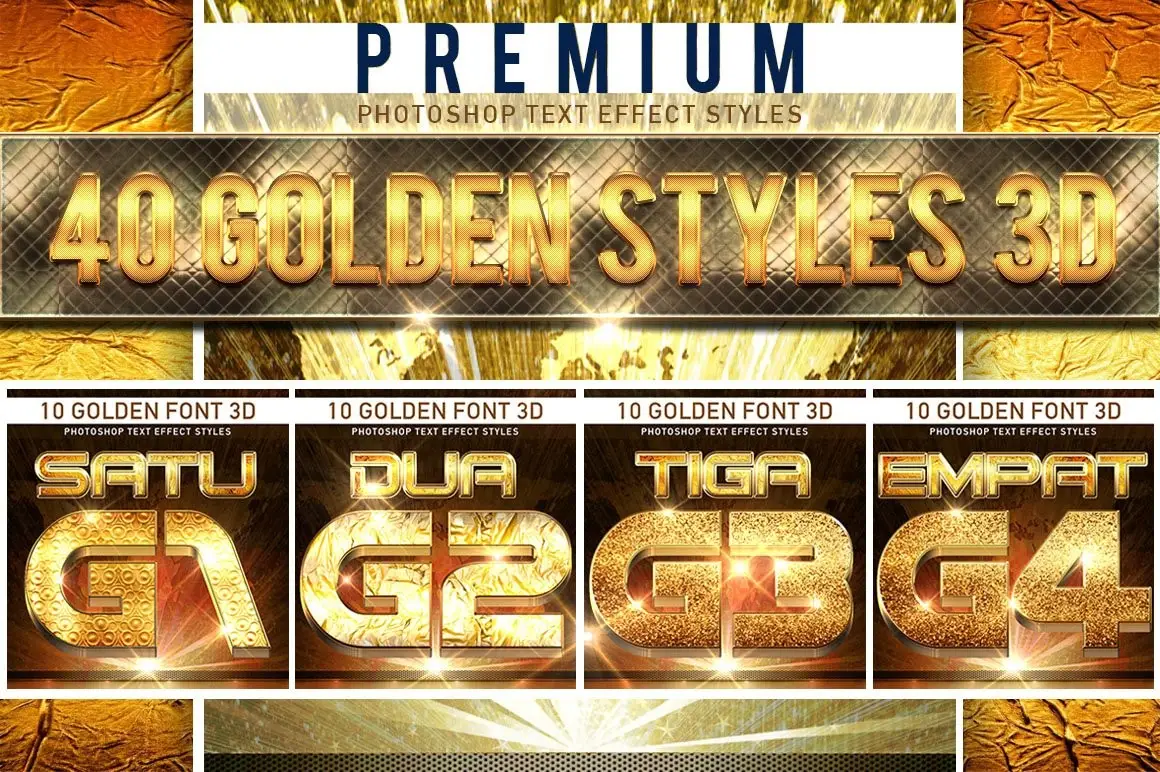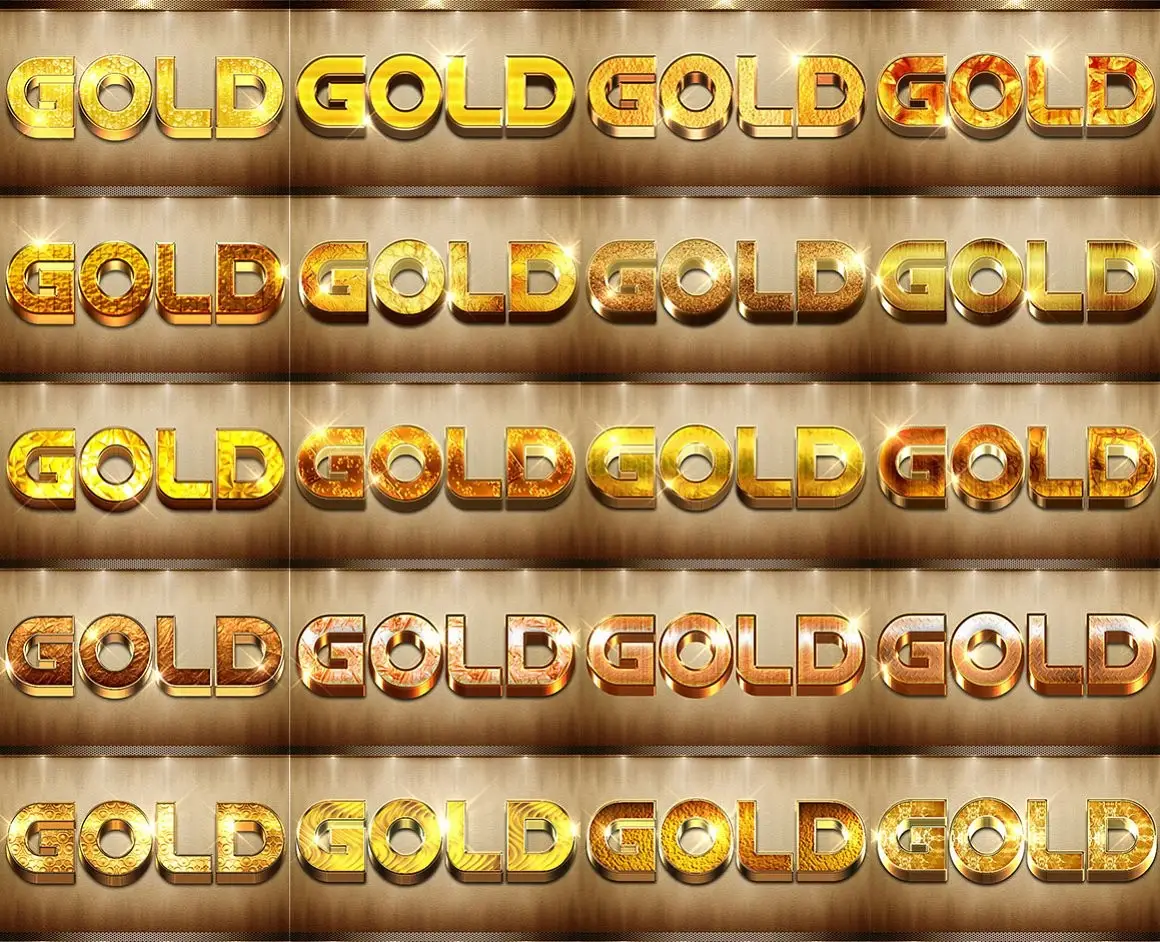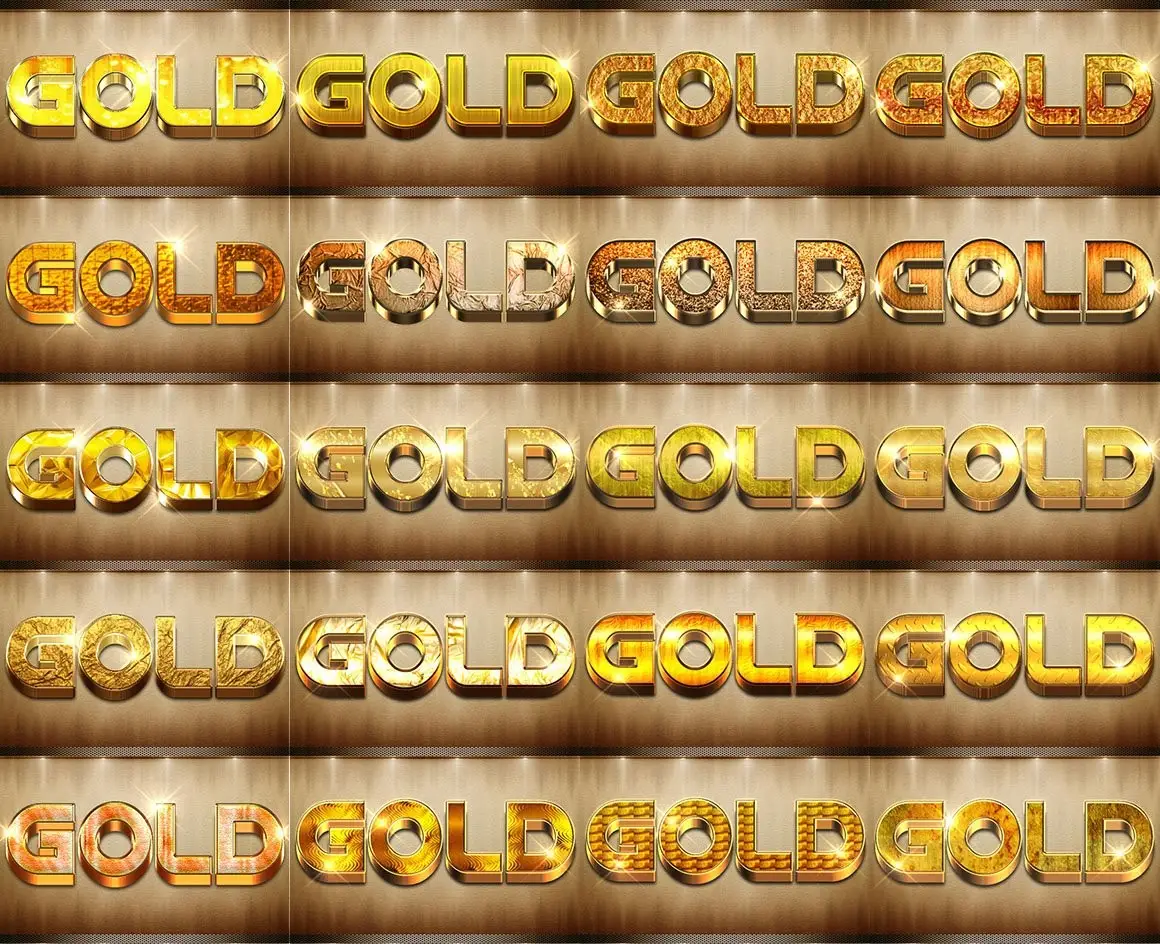
40 Golden Font 3D – Premium Photoshop Text Effects
Transform your designs with the 40 Golden Font 3D, a collection of premium Photoshop text effects that brings elegance and luxury to your projects. Whether you’re working on a summer-themed design or a glamorous presentation, these fonts are fully editable and incredibly easy to customize, making them the perfect addition to your creative toolkit.
The 40 Golden Font 3D is designed specifically for Photoshop users who want to elevate their text with stunning 3D effects. This versatile font pack is ideal for graphic designers, marketers, and anyone looking to add a touch of brilliance to their text. With just a few clicks, you can create eye-catching titles and headlines that stand out.
- ✅ Fully Editable → Easily change size and style to suit your needs.
- ✅ High-Quality Design → Achieve a luxurious look with golden textures.
With the 40 Golden Font 3D, you gain access to a premium set of text effects that can transform ordinary text into extraordinary visuals. This product is trusted by designers worldwide for its quality and ease of use. Whether you’re creating promotional materials, social media graphics, or elegant invitations, this font pack ensures your text shines with glamour and sophistication.